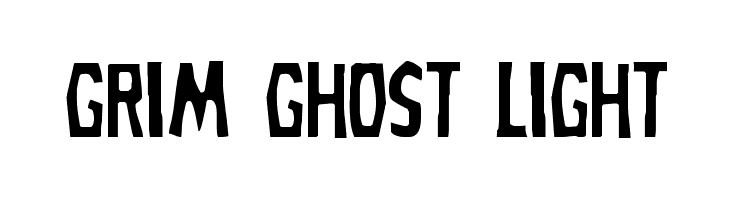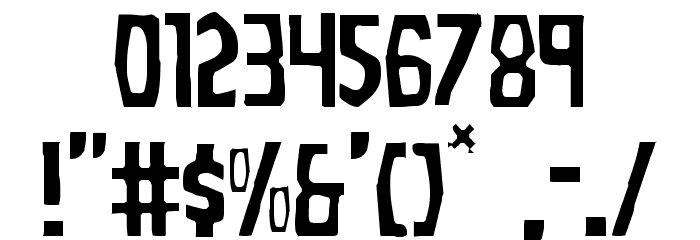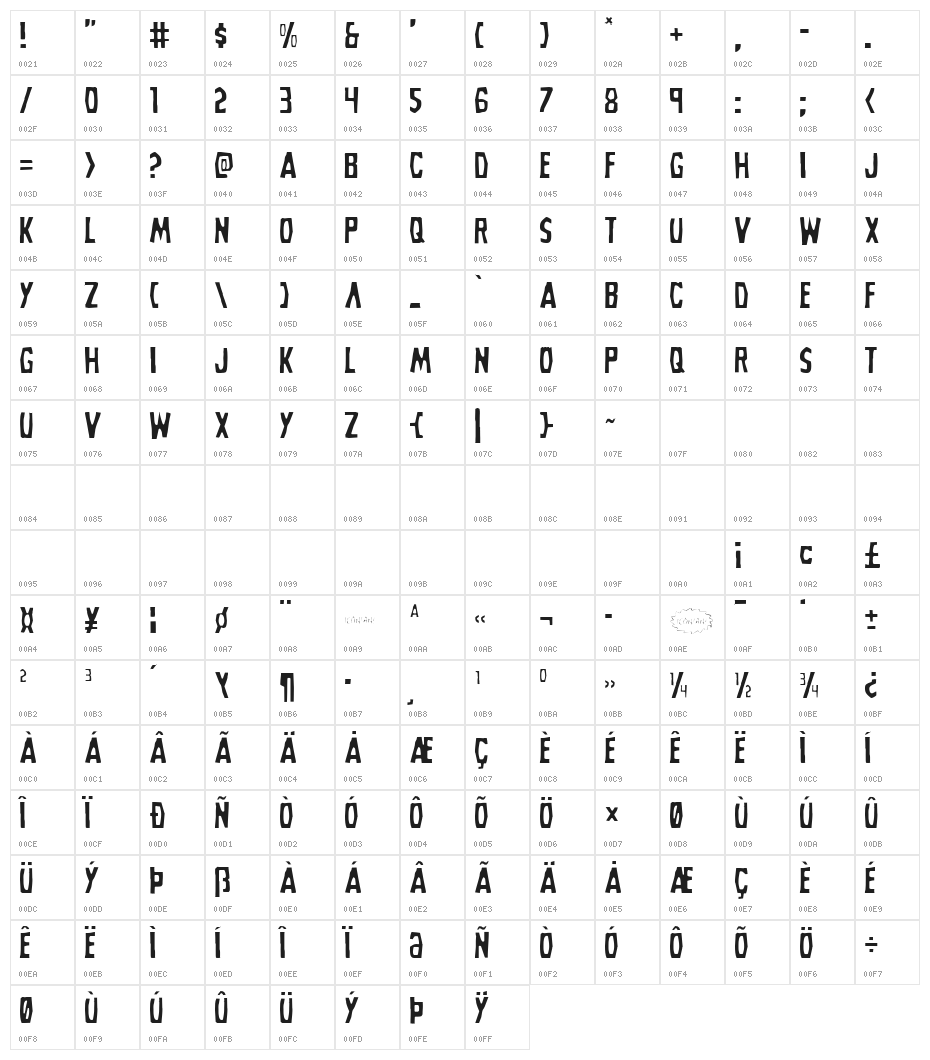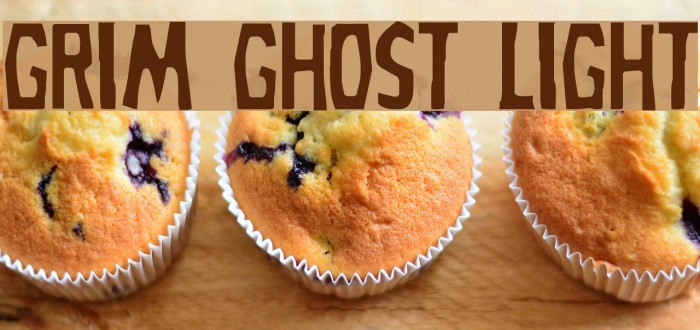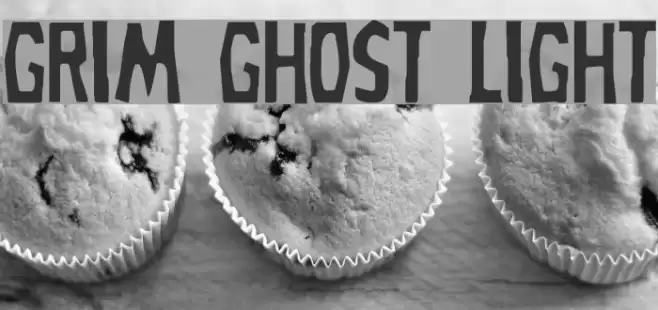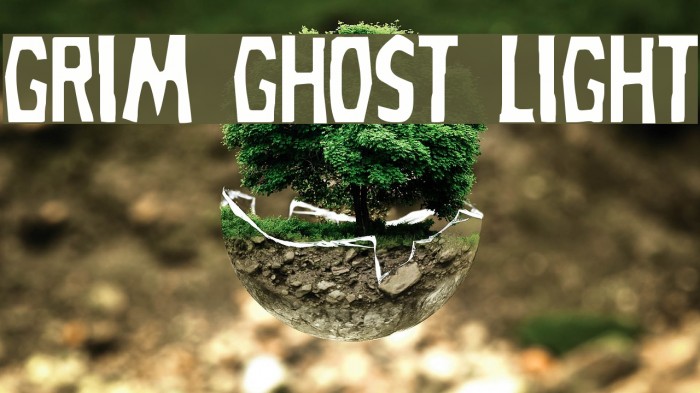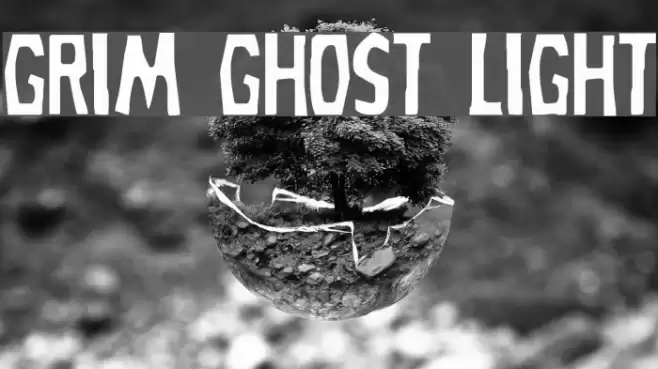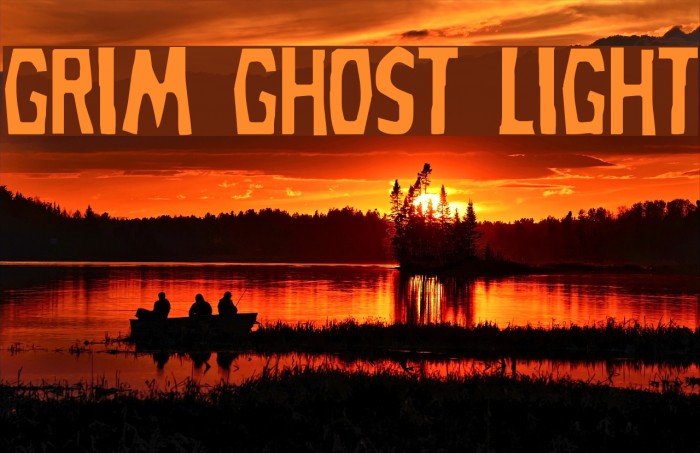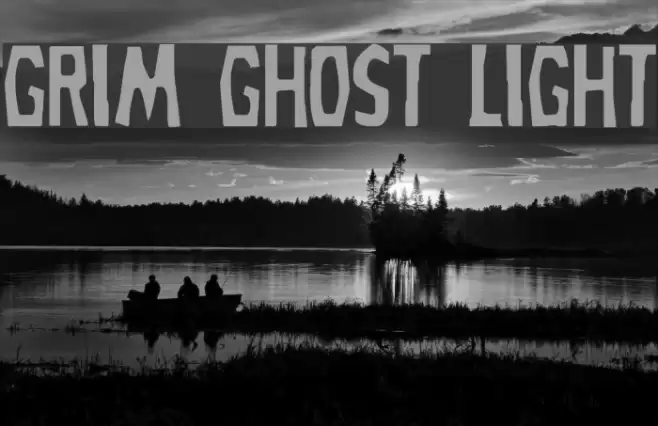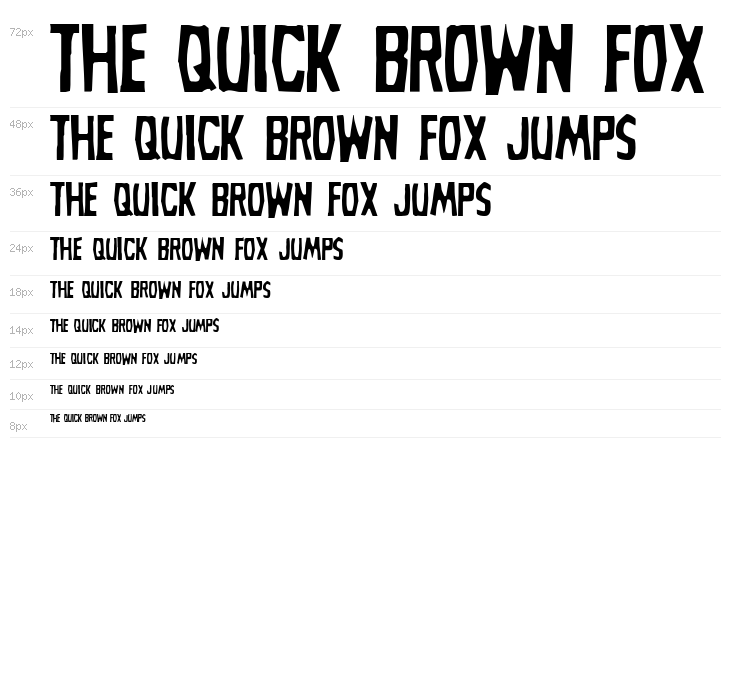
Grim Ghost Light Font
Grim Ghost Light Description
This font features a bold, angular design with a slightly distressed appearance, giving it a rugged and edgy feel. The characters are sharply defined with uneven edges, creating a sense of movement and energy. The uppercase and lowercase letters maintain a consistent style, while the numbers and special characters complement the overall aesthetic. This font's unique style makes it stand out, ideal for projects that require a strong visual impact.
Overall StyleEdgy, Rugged, Modern
Proposed ProjectsIdeal for posters, album covers, video game titles, and branding that requires a bold statement.